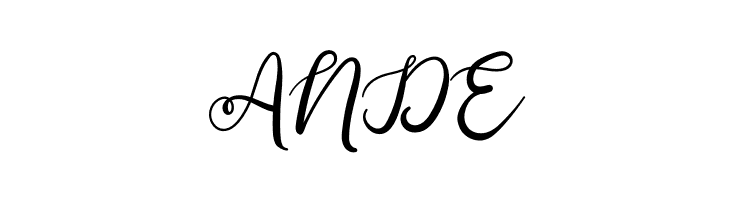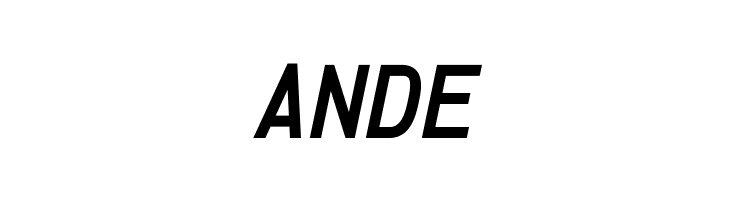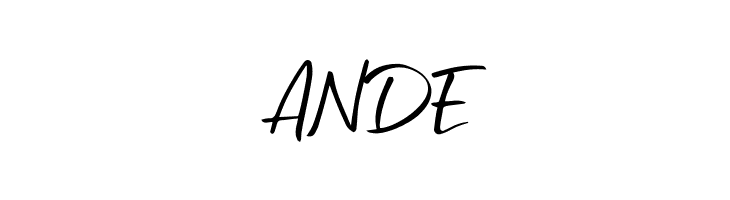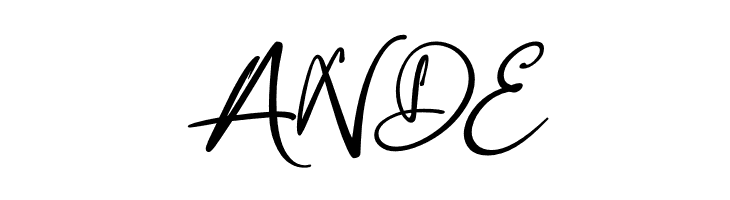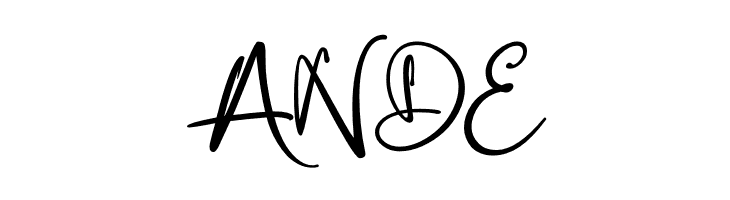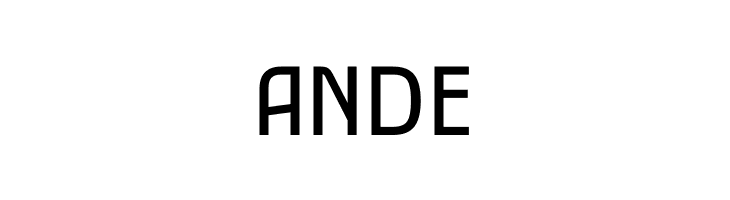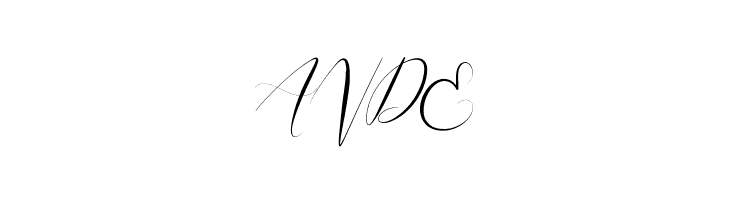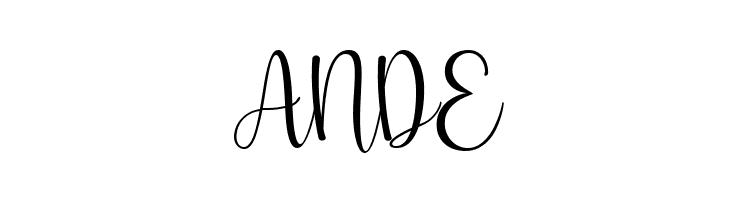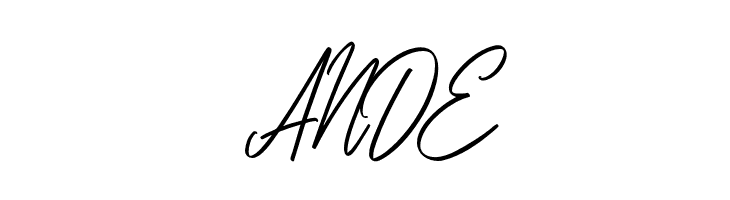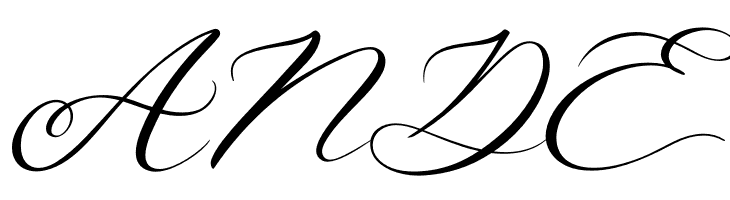
• AnimeAce3SK-Regular
A playful, handwritten-style font with rounded, informal letterforms.
• ANIMEQUEEN
A modern, dot-based font with a digital and playful aesthetic.
• ANIMEQUEEN
A playful, dot-based decorative font with a pixelated, retro digital style.
• Animoto Bubbly
A playful, bubbly font with circular, overlapping shapes and a modern flair.
• Anindya Meita Demo
A flowing, cursive font with elegant, interconnected characters.
• Anisa Fonfon Regular
A playful, handwritten font with rounded, consistent strokes and a whimsical style.
• Anisah
A bold, expressive handwritten font with fluid strokes and medium contrast.
• Anisha
A lively, handwritten script font with expressive curves and fluid strokes.
• Anisha
An elegant script font with flowing, cursive letterforms and decorative swashes.
• Anisha Italic
A flowing, cursive script font with elegant, interconnected strokes.
• Anissa Regular
A flowing, cursive script font with elegant loops and swashes.
• Anisver
• Anita Semi-square
A modern, geometric font with a semi-square structure and uniform stroke width.
• Anita Jane
A graceful script font with flowing, interconnected strokes and high contrast.
• AnitaScriptDEMO-Regular
A dynamic and elegant script font with fluid, connected letterforms.
• Anitta
A bold, geometric font with high contrast and artistic design elements.
• Anitto
A dynamic and fluid script font with elegant, flowing strokes.
• Anitya
A cursive, flowing font with elegant, sweeping lines and artistic flair.
• Aniyah Personal Use
A sophisticated script font with flowing, cursive characters and high contrast strokes.
• AnjaniScriptDEMO
A lively and flowing script font with elegant, interconnected letters.
• Anjaniya
A modern, elegant script font with intricate loops and smooth curves.